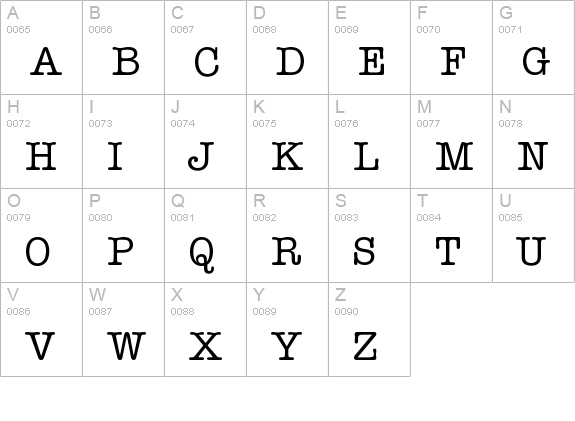
Keyboard Alternate SSi Medium Alternate Font Details
Keyboard Alternate SSi Medium Alternate is a balanced, medium-weight variant in the Keyboard typeface family \xE2\x80\x94 well suited to sub-headlines, navigation, and balanced editorial work.
Keyboard Alternate SSi Medium Alternate font is a versatile and stylish typeface that is perfect for adding a touch of modernity to your designs. With its clean lines and unique alternate characters, this font is sure to make a statement. Whether you're designing a logo, creating a website, or designing a printable, Keyboard Alternate SSi Medium Alternate font will add a touch of sophistication to your project. This font is not only visually appealing, but it also offers great functionality. The alternate characters allow you to experiment with different design options and create truly unique and eye-catching compositions. The medium weight of this font strikes the perfect balance between boldness and subtlety, making it suitable for a wide range of design projects. One of the best things about Keyboard Alternate SSi Medium Alternate font is that it is available for free! Yes, you read that right. This font is freely available to download at FontsMarket.com. You don't have to worry about breaking the bank to get access to high-quality typography. With just a few clicks, you can have this font in your design arsenal, ready to elevate your creations to the next level. So why wait? Go ahead and download Keyboard Alternate SSi Medium Alternate font today and start exploring the endless design possibilities it offers. Whether you're a professional designer or just starting out, this font is a must-have in your collection. Its versatility, style, and the fact that it's free make it an unbeatable choice. Don't miss out on this opportunity to take your designs to new heights.